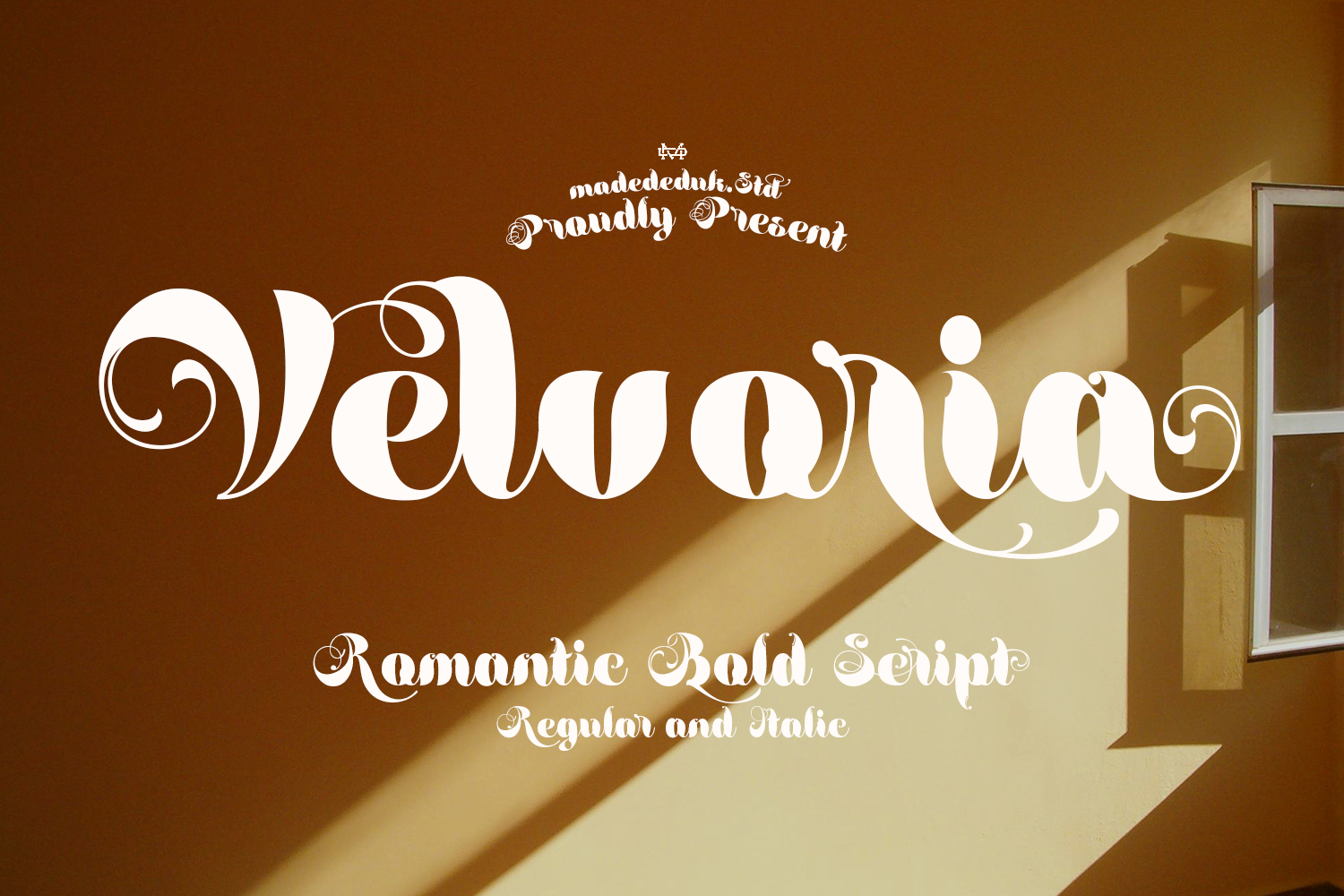
Velvoria Script
Introducing Velvoria, a decorative script typeface that captivates with its bold strokes, dramatic curves, and intricate ornamental details, exuding an artistic and elegant character. Its unique and expressive letterforms make this font perfect for design projects that demand a striking appearance. Ideal for branding, titles, digital content, and printed materials, Velvoria ensures your message stands out with strength and memorability. With a variety of weights and OpenType features, this font enhances versatility, making it suitable for both modern and classic designs. Whether you're creating eye-catching advertisements or elegant invitations, Velvoria adds a touch of sophistication to any project.
Feature
•  Uppercase & Lowercase
•  Number & Symbol
•  International Glyphs
•  Multilingual support
•  Ligature
•  Alternative